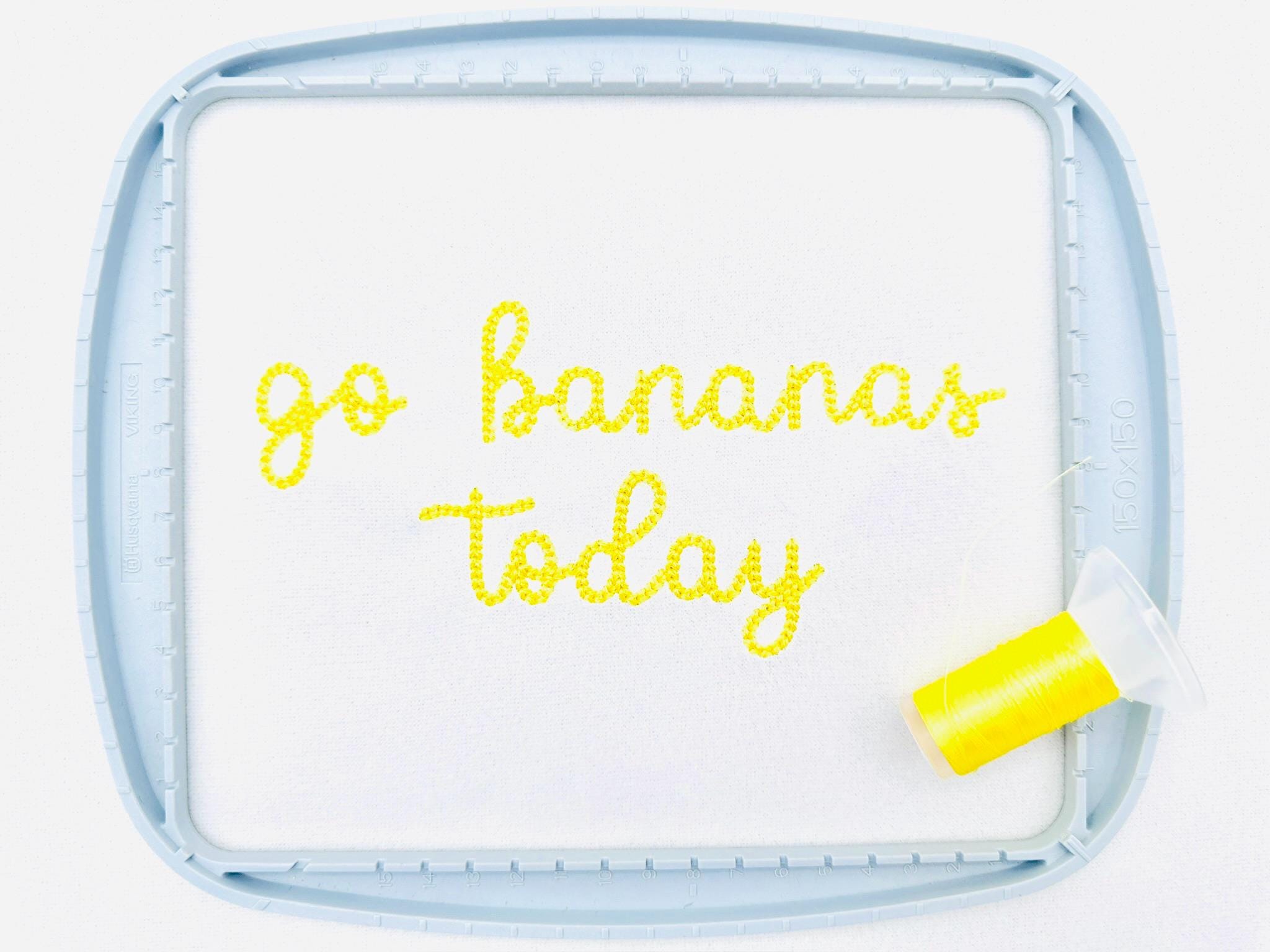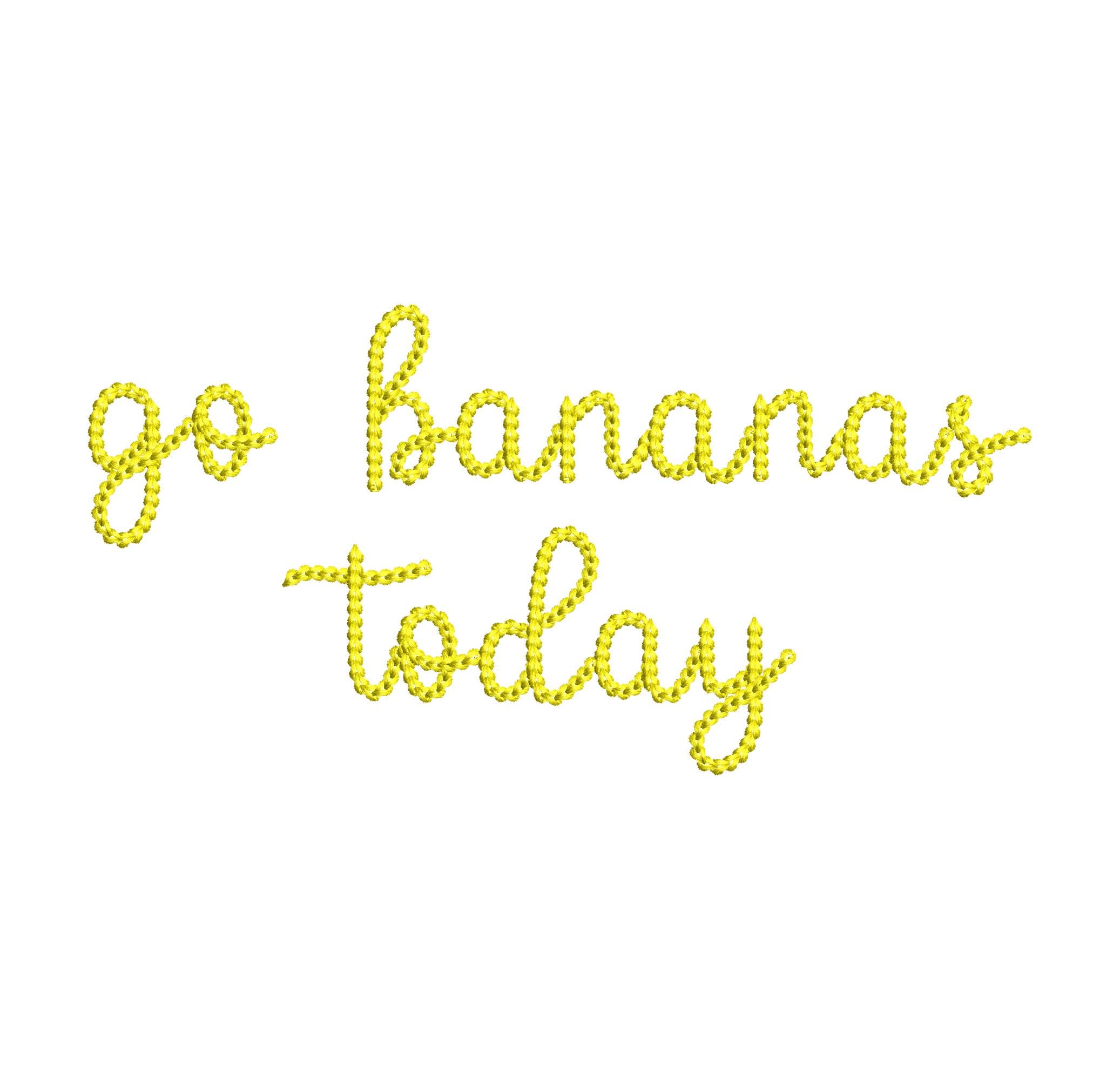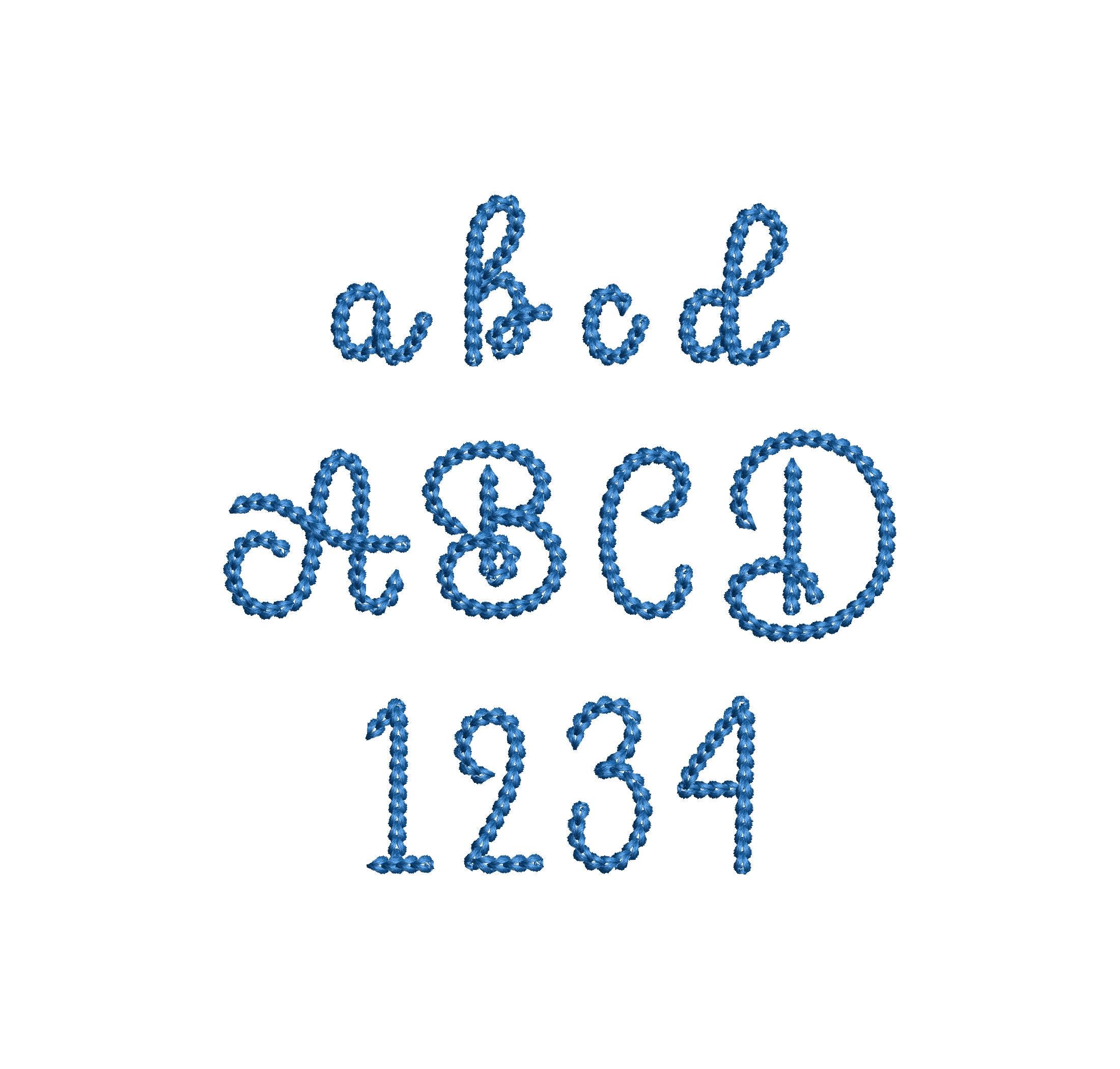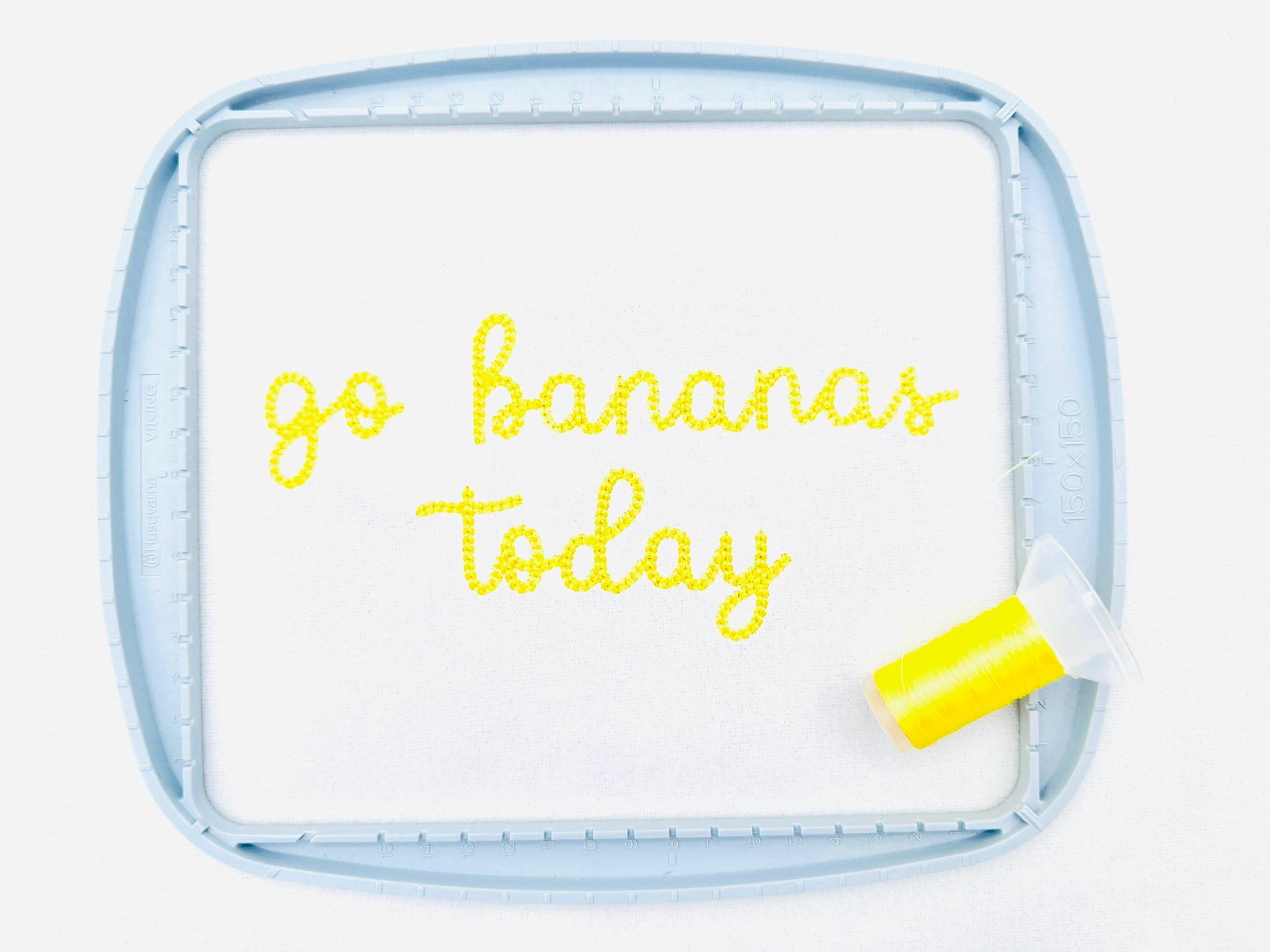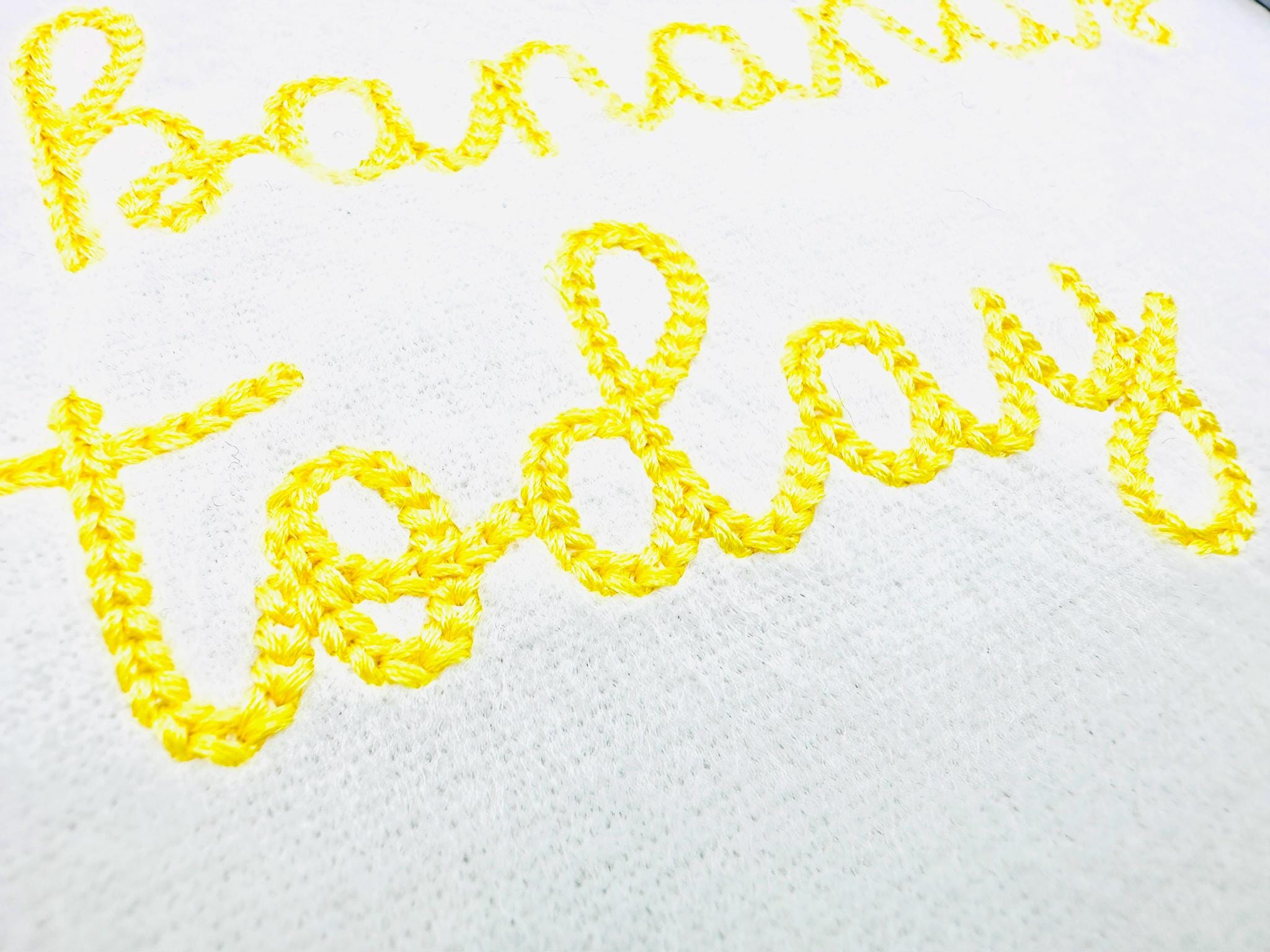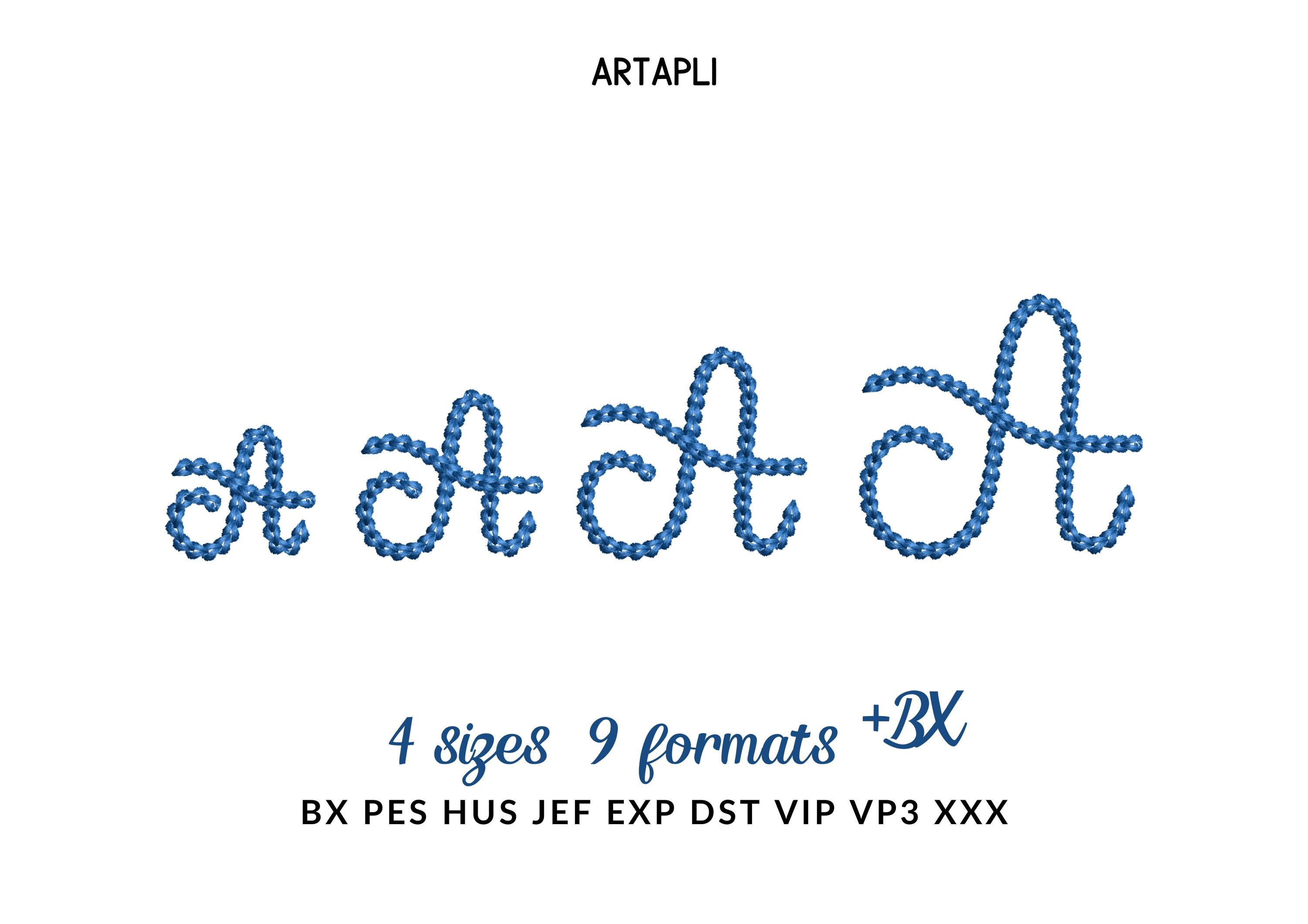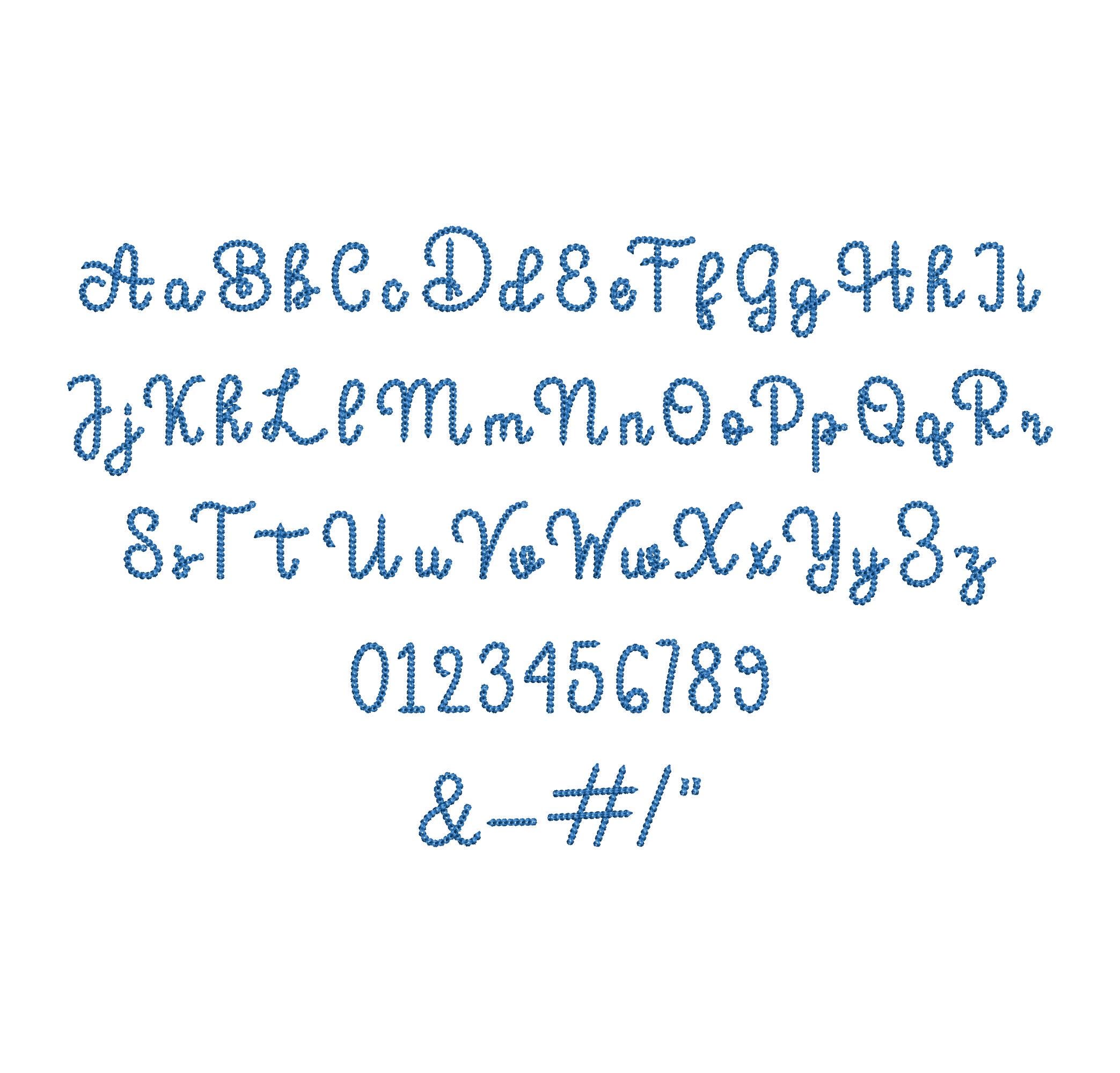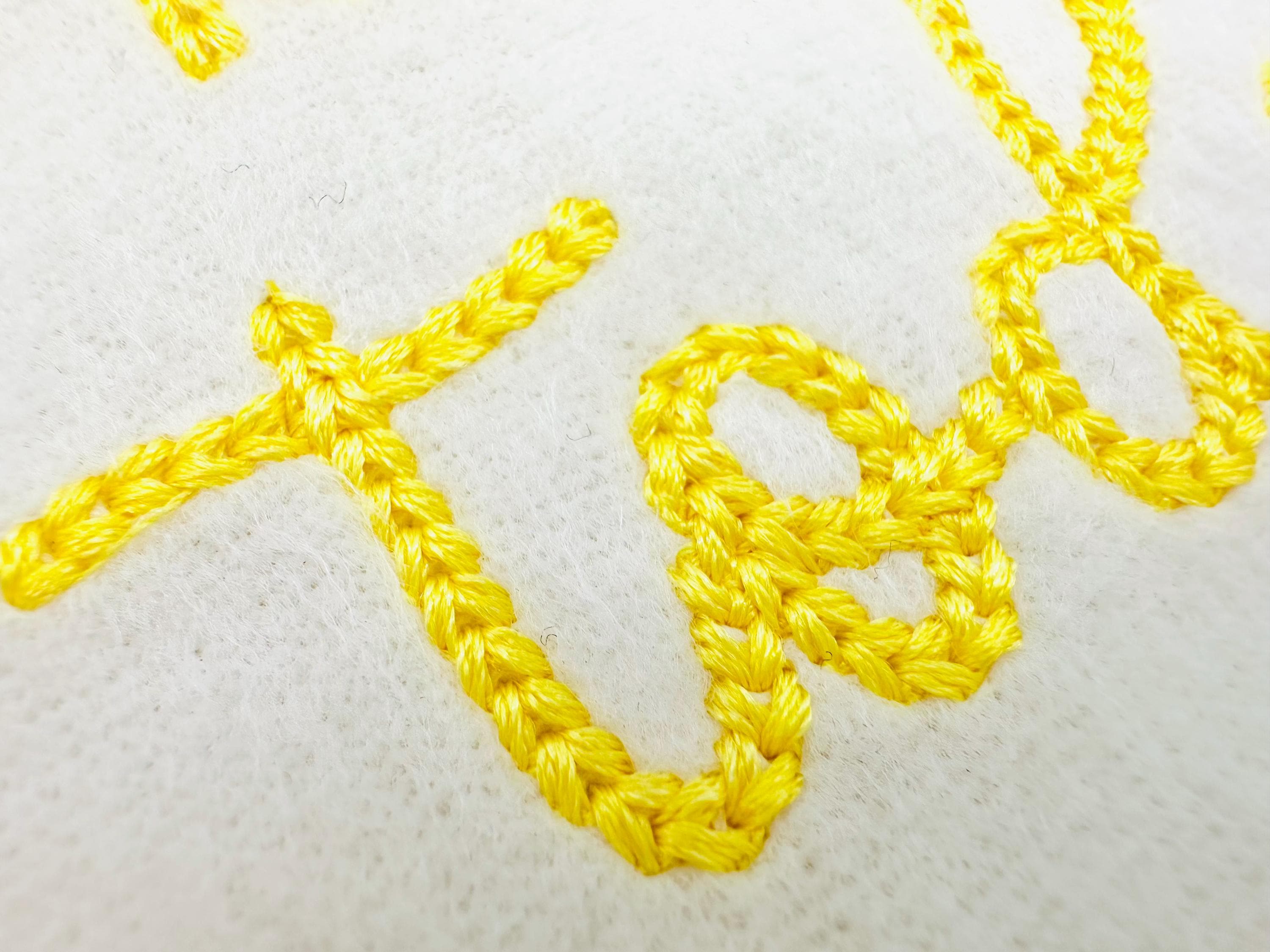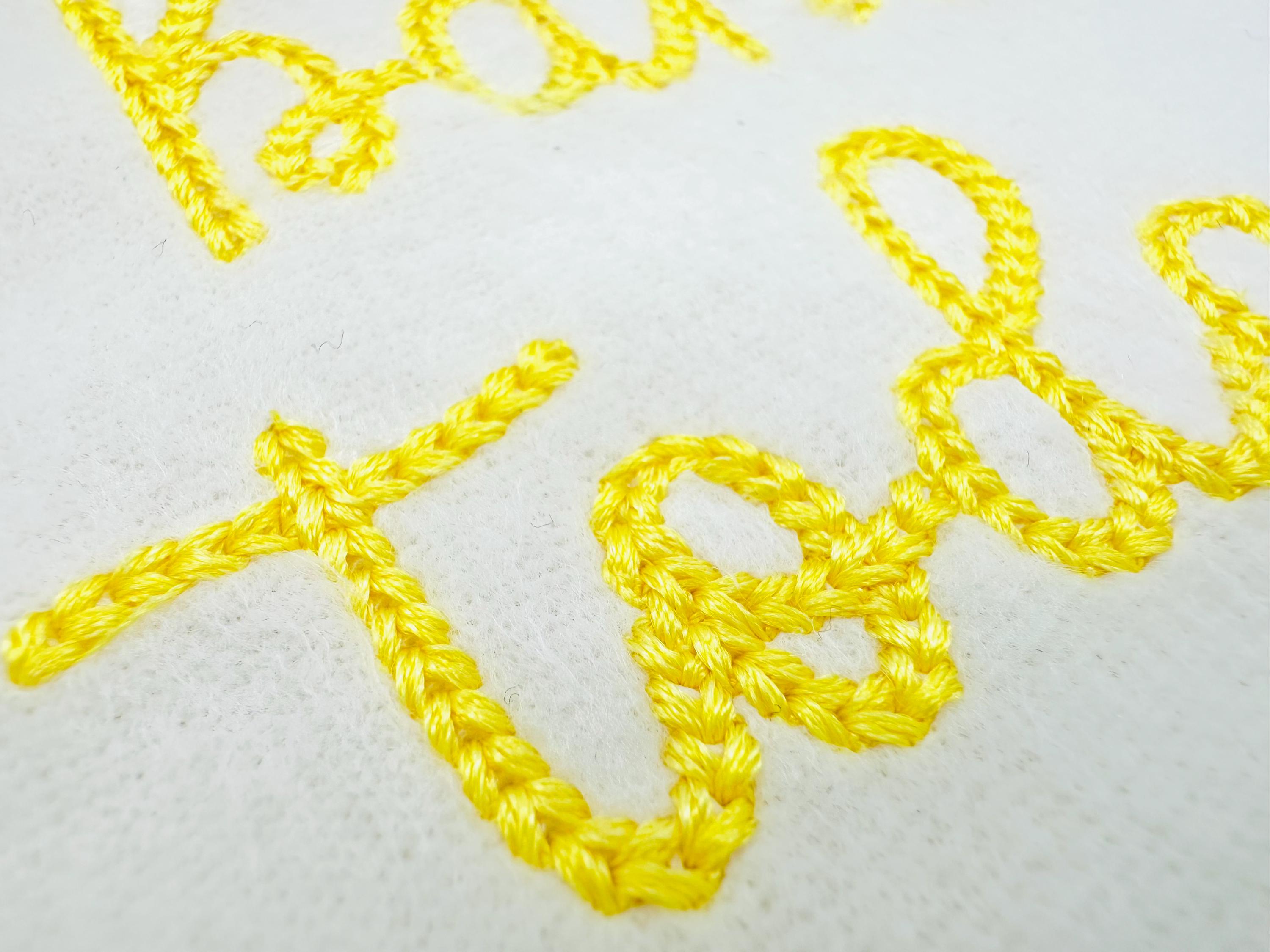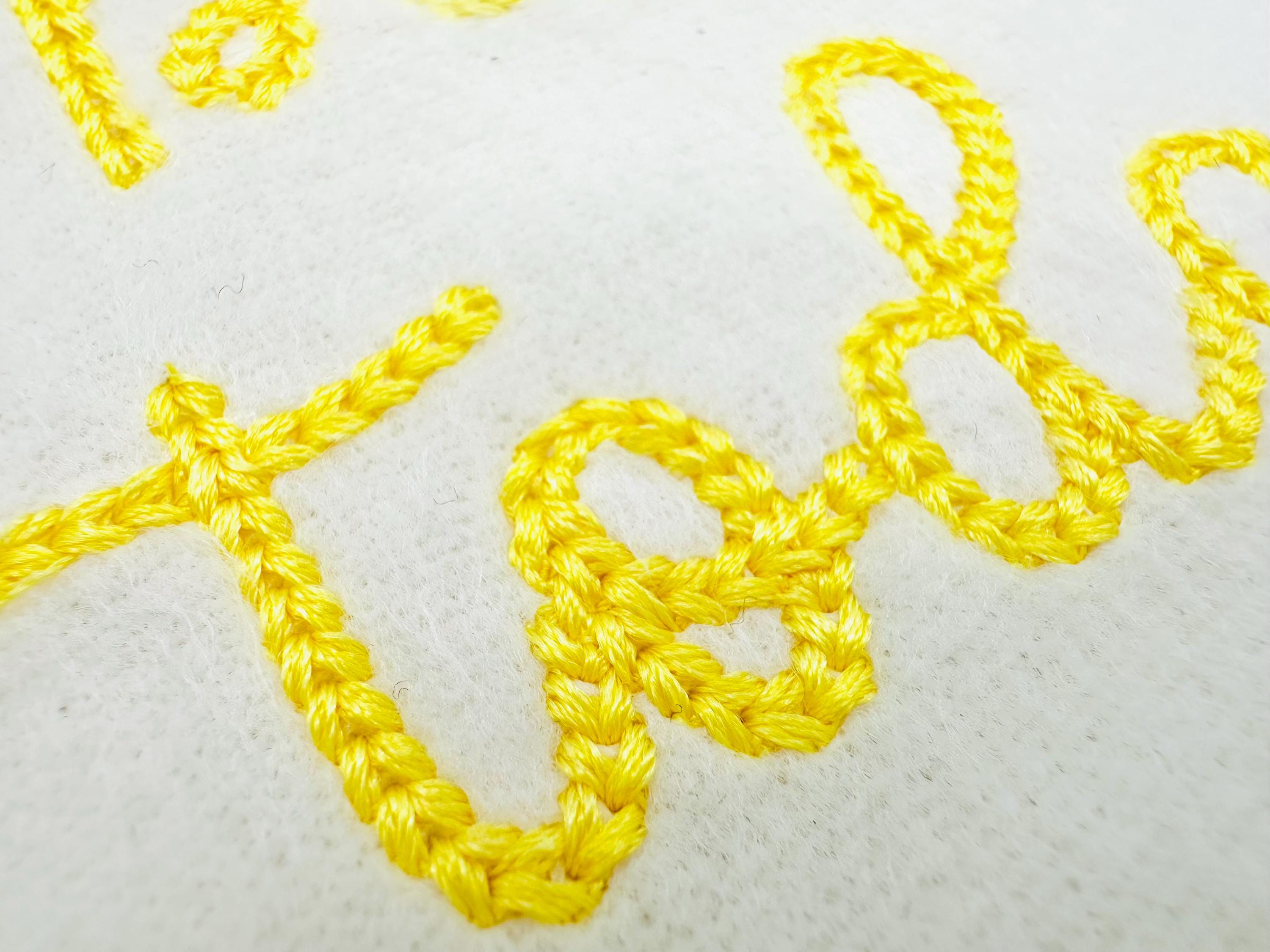
Tiny mini Chain FONT Monkey machine embroidery designs kids baby name handwritten script alphabet letters mini sizes 0.9 up to 1.7 inch BX
Entire alphabet uppercase and lowercase letters Aa-Zz, numbers 0-9, and punctuation as shown in the image.